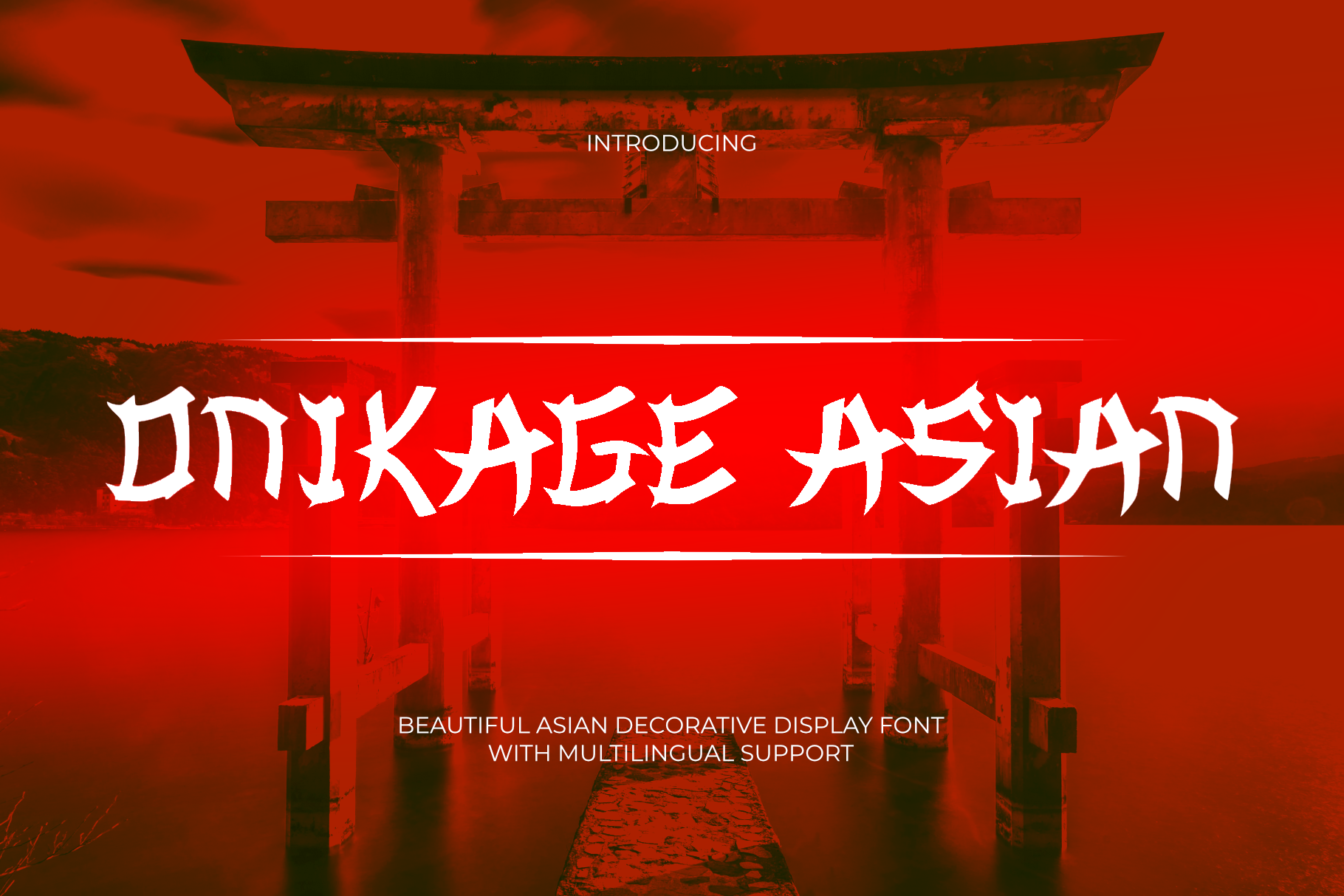
Onikage Asian Display Font
Onikage Asian is a bold display typeface inspired by Japanese aesthetics, tribal shapes, and modern blackletter style. Designed with sharp edges and aggressive letterforms, this font delivers a strong dark atmosphere perfect for eye-catching visual projects.
Its unique character combines gothic energy, streetwear culture, and fantasy vibes, making it ideal for logos, posters, album covers, gaming titles, branding, apparel designs, and creative headlines.
Whether you are creating a cyberpunk concept, metal artwork, or urban streetwear branding, Onikage Asian adds a powerful and distinctive visual identity to your design.
Streetwear Branding
Gaming & Esports
Posters & Album Covers
Japanese Style Designs
Metal & Gothic Themes
YouTube Thumbnails
Urban Artwork
Unique Sharp Letterforms
Bring a dark, edgy, and modern Asian-inspired aesthetic into your next creative project with Onikage Asian Display Font.